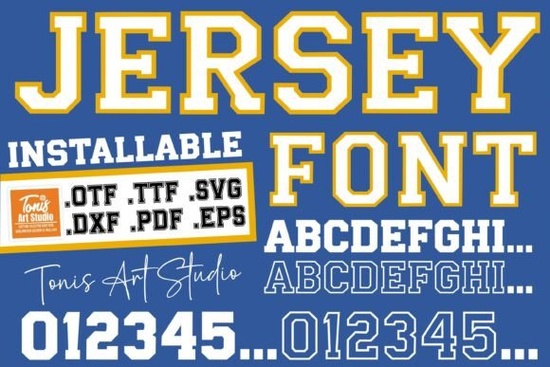
If you’ve been searching for a font that brings energy and personality to sports-themed projects, the Jersey Outline Font might be exactly what you need. It’s built for creators who want bold, eye-catching lettering without sacrificing versatility. Whether you’re designing custom team jerseys, spirit wear for school events, or promotional posters for local leagues, this font pairs thick uppercase letters with crisp outlined lowercase characters letting you mix styles while keeping everything visually cohesive.
What makes this font work so well for sports and team designs?
The key is in the contrast. Uppercase letters are solid and heavy, giving weight to headlines or player names. The lowercase letters are outlined, which creates breathing room and lets background colors or textures peek through. This combination gives your design movement like motion on the field without looking cluttered.
It’s especially useful if you’re working with layered vinyl, heat transfer, or screen printing. The clean lines hold up at any size, and the open outlines won’t clog during production. You’ll find it easy to pair with other fonts too try using Relitha for numbers or stats, or Start Dash for motivational slogans underneath.
Who should consider using this font?
- Print-on-demand sellers Add it to your store for custom hoodies, caps, or gym bags. Customers love fonts that feel “official” but still unique.
- School clubs and booster groups Create consistent branding across banners, tickets, and merchandise without hiring a designer.
- Crafters with Cricut or Silhouette machines The outlined lowercase cuts cleanly and layers beautifully over solid shapes or photos.
- Small sports businesses Use it for social media graphics, flyers, or sponsor thank-you boards. It reads well even at small sizes.
How does it compare to other display fonts?
Unlike many athletic fonts that rely only on blocky capitals, this one gives you flexibility. You can write full sentences without losing visual interest. And because the lowercase is outlined, you can fill it with gradients, patterns, or team colors something you can’t easily do with solid fonts.
If you’ve tried fonts like Right Point or College and found them too rigid or too decorative, Jersey Outline strikes a practical middle ground. It’s sporty but not cartoonish. Bold but not overwhelming.
Any tips for getting the most out of this font?
- Use uppercase for names or titles, lowercase for descriptions or taglines. The contrast helps guide the viewer’s eye.
- Try colored fills inside the outlined letters team colors, metallic foils, or even photos clipped inside the letters can add depth.
- Pair it with simple sans-serifs for body text. Let the display font shine without competing elements.
- Test print or cut a sample first especially if you’re using multiple layers. Make sure the outline thickness works with your material.
Where else can you use it beyond sports?
While it’s built for athletics, don’t limit yourself. Try it for:
- Music festival posters
- Streetwear brand logos
- YouTube thumbnails with high-energy topics
- Back-to-school sales or campus event flyers
The bold + outline combo works anywhere you want to grab attention without screaming. Think of it as confident, not loud.